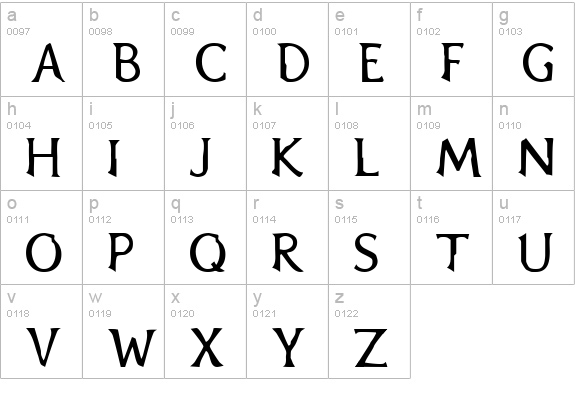
Blair Caps Font Details
Blair Caps font exudes elegance and sophistication with its sleek design and clean lines. This versatile font is perfect for adding a touch of class to any project, whether it's for invitations, branding, or editorial design. With its bold and eye-catching appearance, Blair Caps font is sure to make a statement. The best part? Blair Caps font is available for free download at FontsMarket.com. Now you can elevate your designs without breaking the bank. Don't miss out on this opportunity to add a touch of luxury to your projects with the exquisite Blair Caps font. Download it today and let your creativity shine!